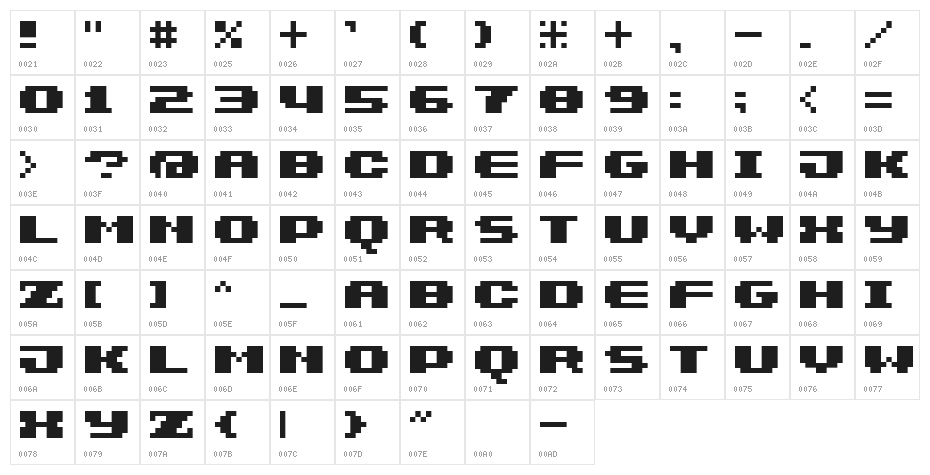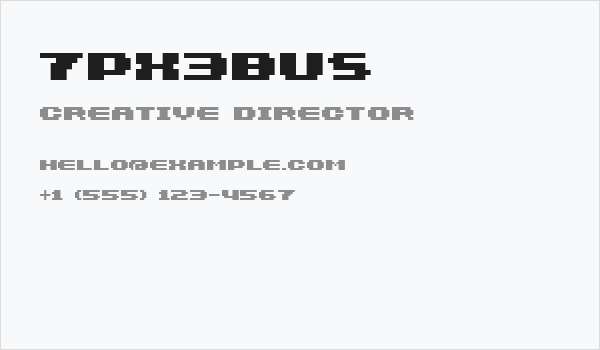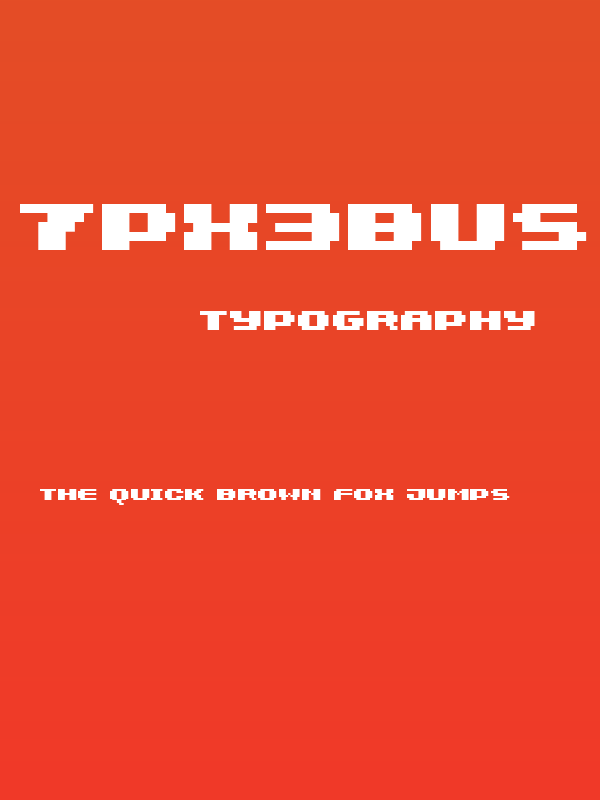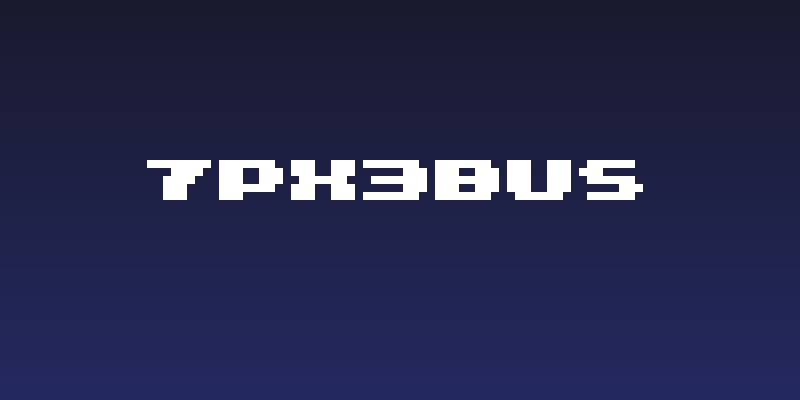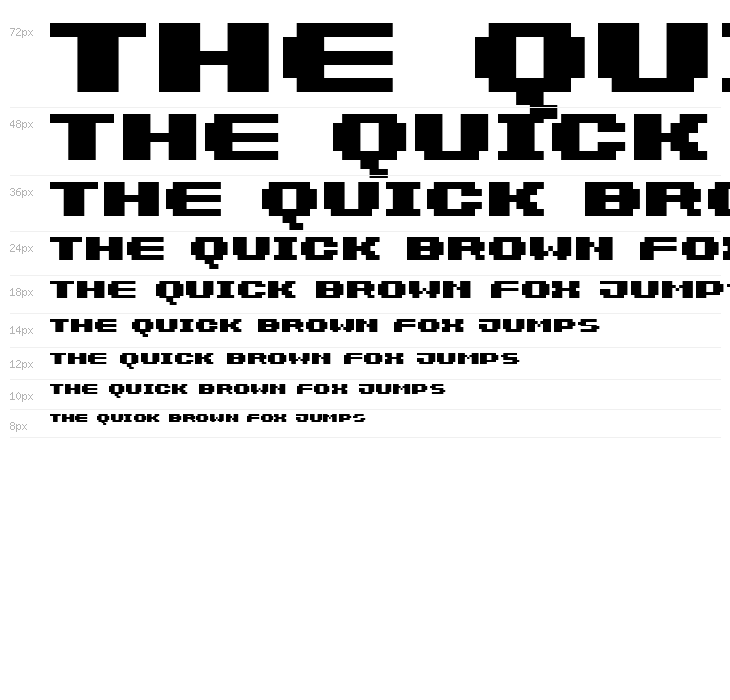
7px3bus Font
010Bus
| Stil general | Retro, Digital |
| Caz de utilizare | Headlines, Logos, Digital displays |
| Proiecte propuse | Ideal for video game design, digital art projects, retro-themed websites, or any creative work that requires a nostalgic, tech-inspired aesthetic. |